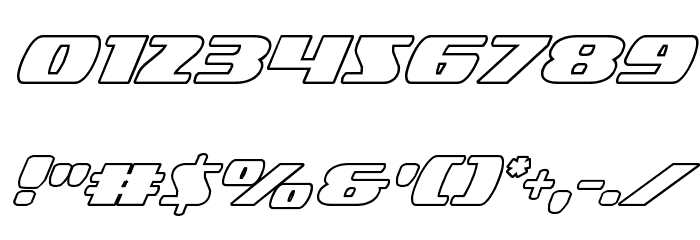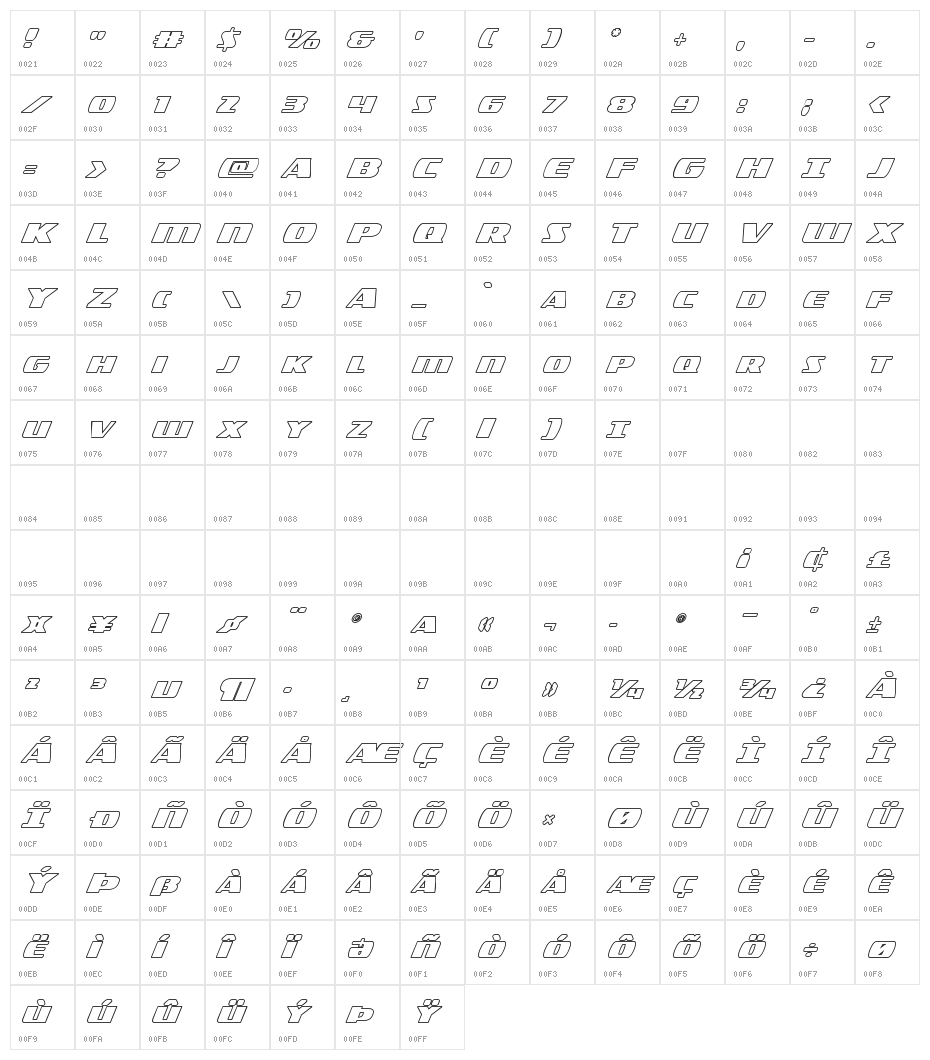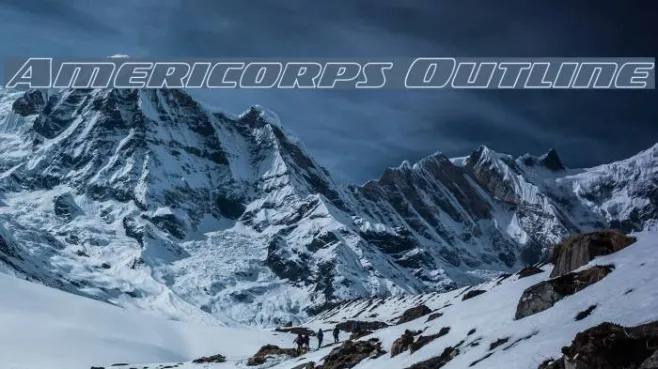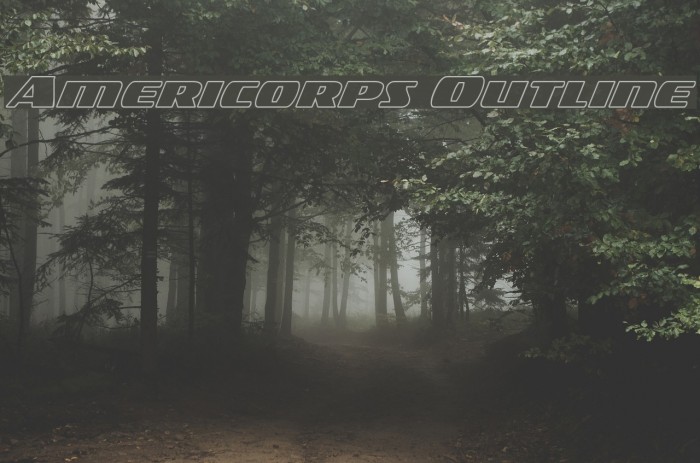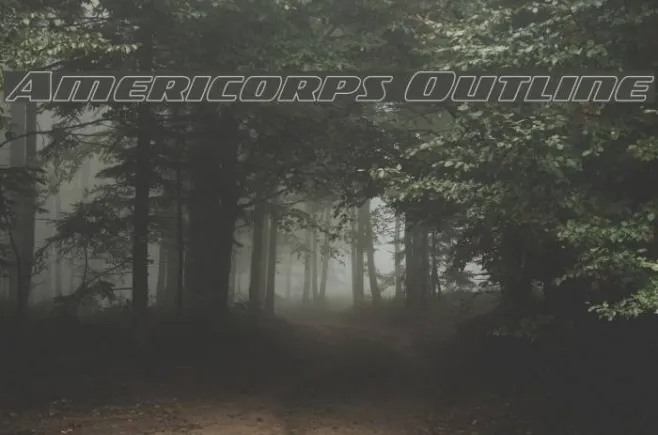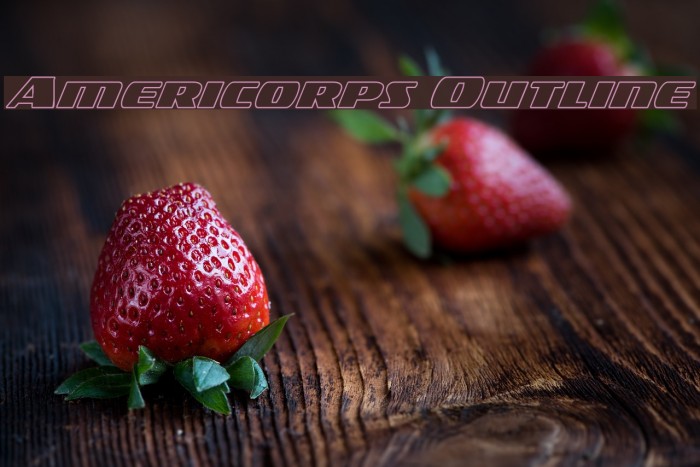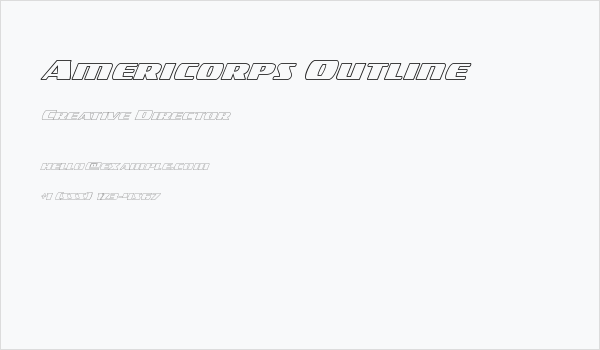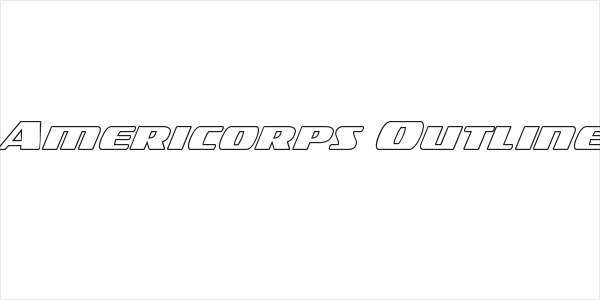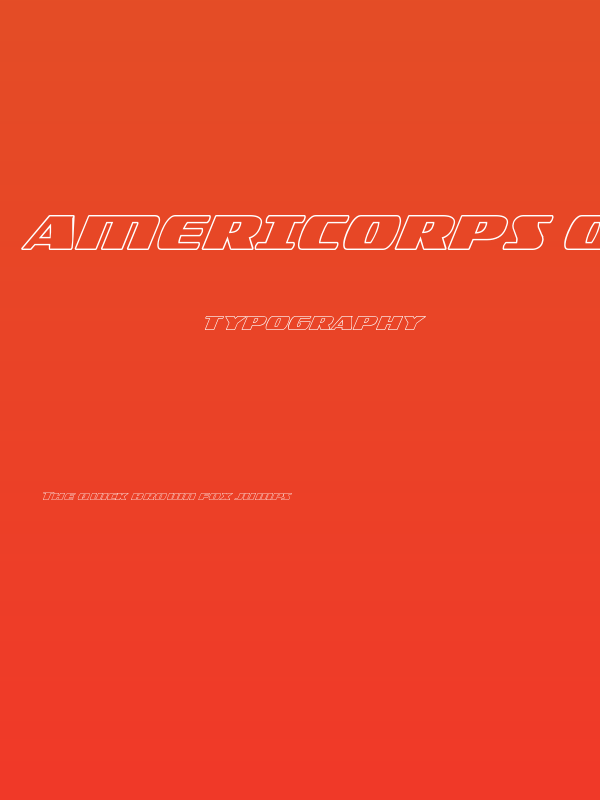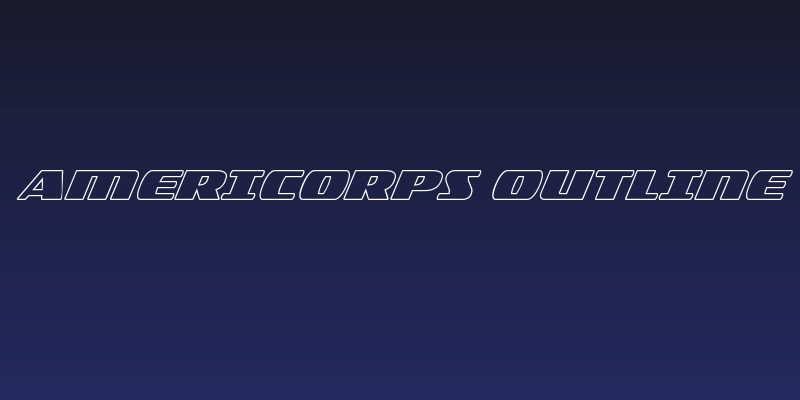
Americorps Outline Font
Americorps Outline Description
This font features a bold, outlined style with a modern and futuristic appearance. The characters are uppercase with a geometric structure, giving them a strong and dynamic presence. The outlines are consistent in thickness, creating a uniform look across all characters. The font is highly legible and makes a striking visual impact, suitable for attention-grabbing designs. Its clean lines and sharp angles convey a sense of precision and efficiency. The spacing between characters is normal, ensuring readability while maintaining its bold aesthetic.
| Proposed Projects | Ideal for branding, headlines, posters, and any design requiring a strong visual impact. |